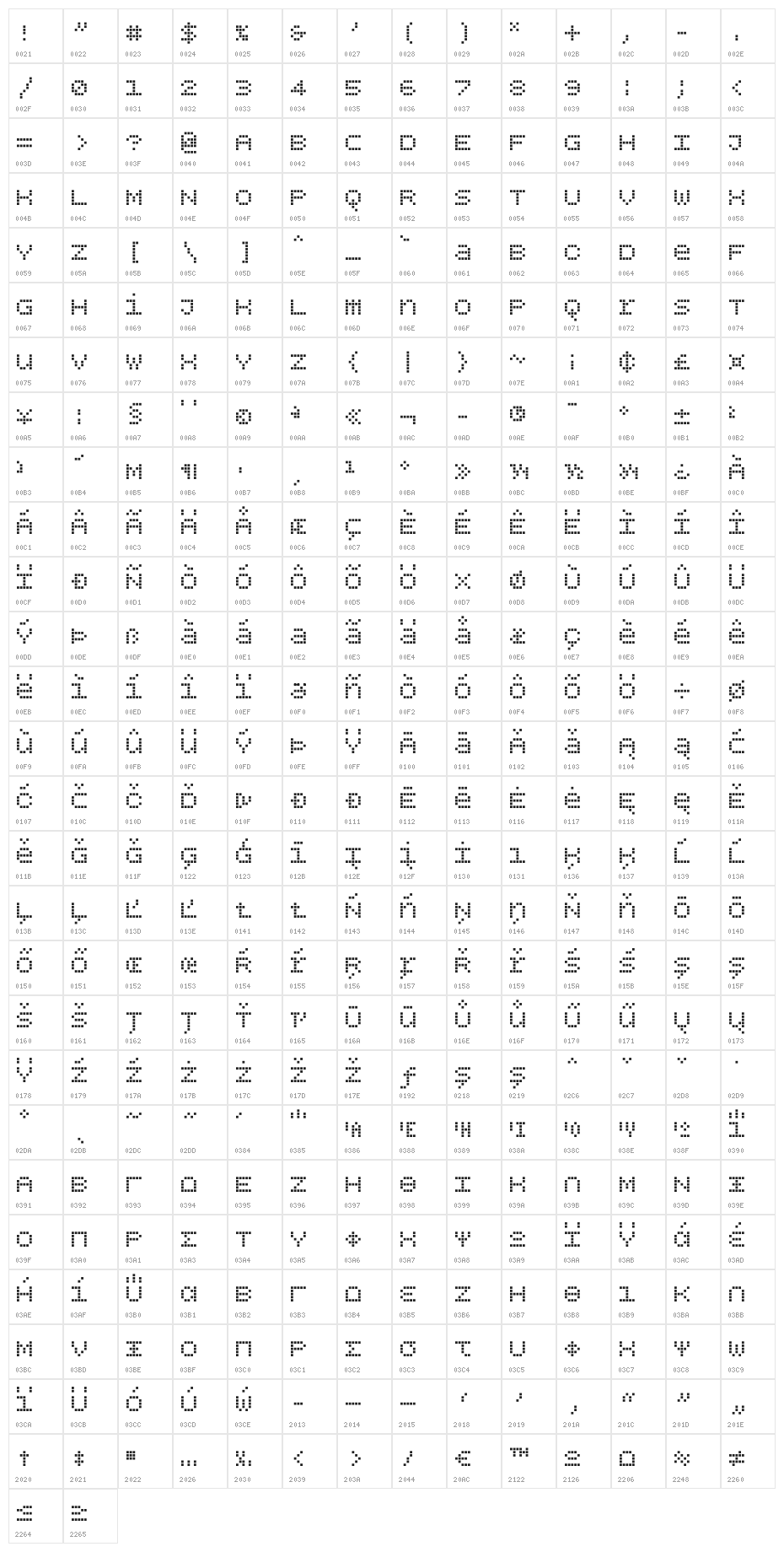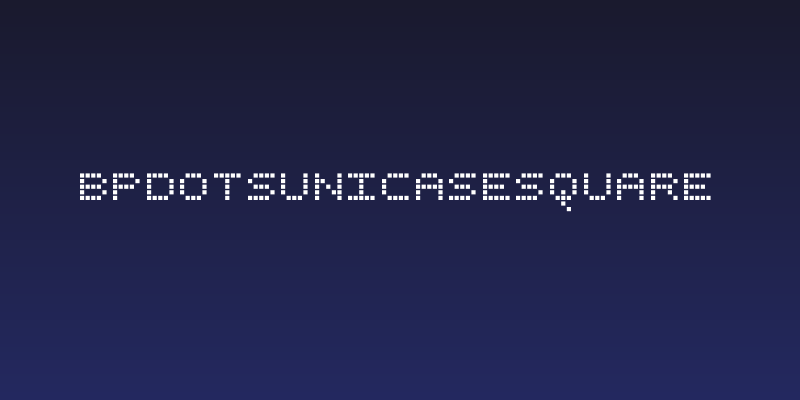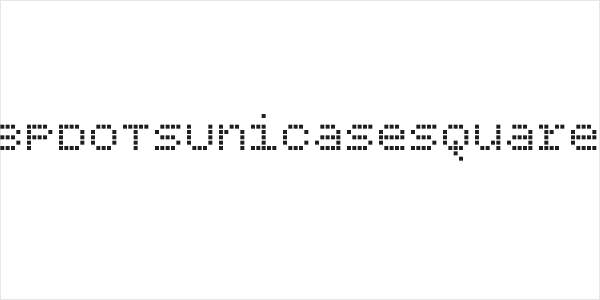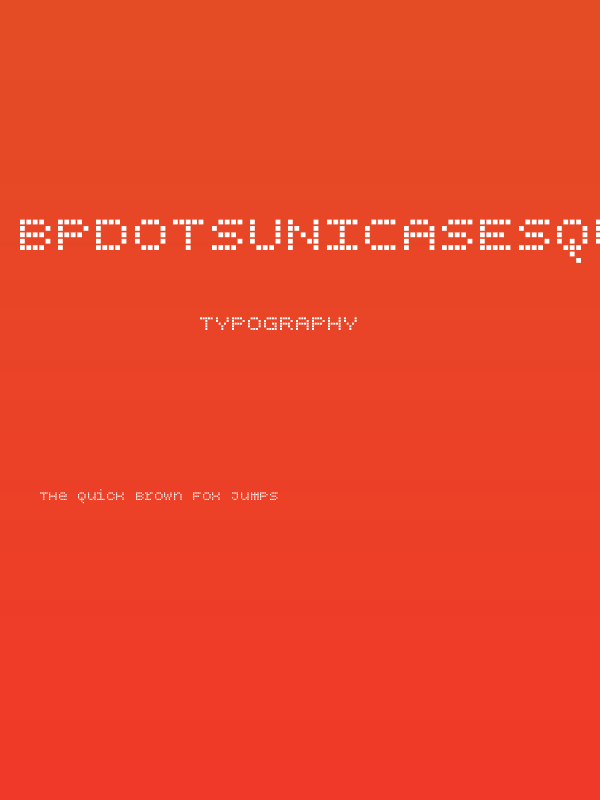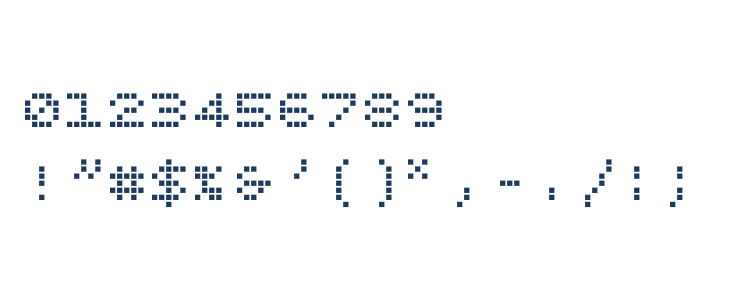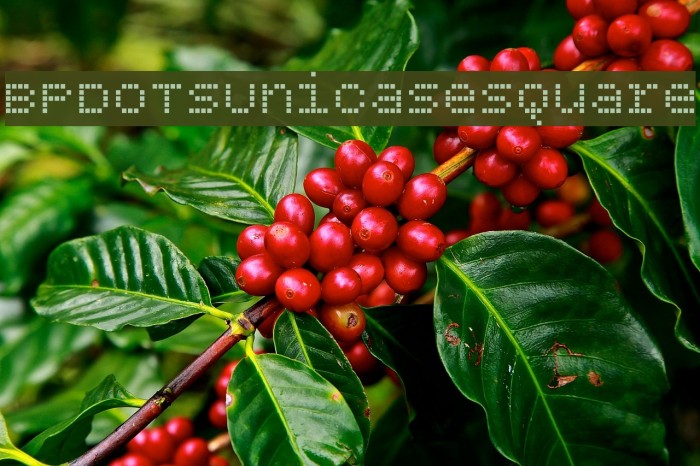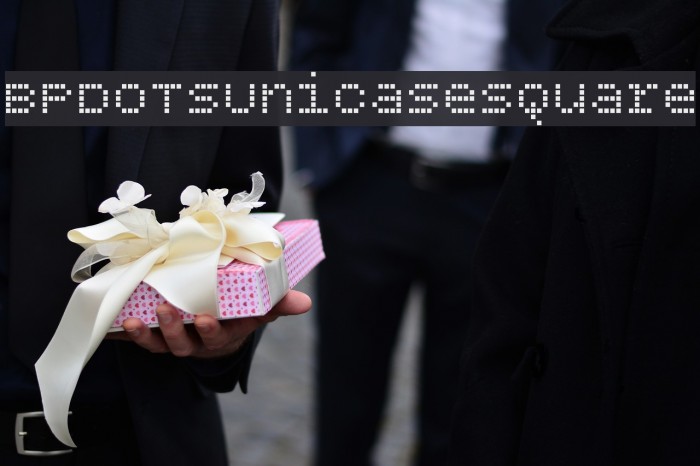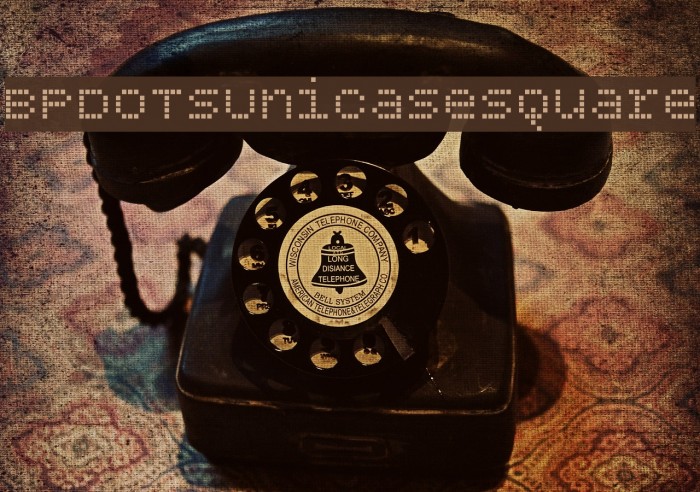
BPdotsUnicaseSquare Font
BPdotsUnicaseSquare Description
This font features a unique design composed entirely of square dots, creating a pixelated and digital appearance. Each character is constructed with precision, maintaining uniformity across uppercase, lowercase, numbers, and special symbols. The geometric arrangement of dots gives it a modern and tech-inspired look, reminiscent of early digital displays or LED screens. Its distinct style makes it stand out, offering a futuristic and minimalist aesthetic. The font's grid-like structure ensures clarity and readability, even at smaller sizes, while its unconventional form adds a playful yet sophisticated touch.
| Use Case | Logos, Headlines, Digital displays |
| Proposed Projects | Ideal for digital art, tech branding, video game design, and futuristic-themed projects. |